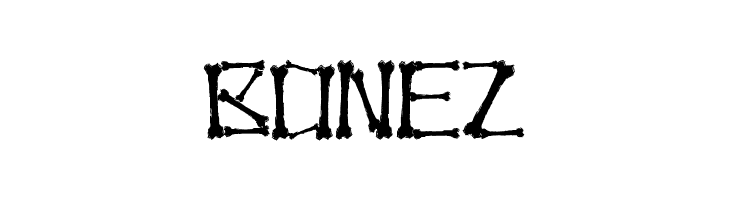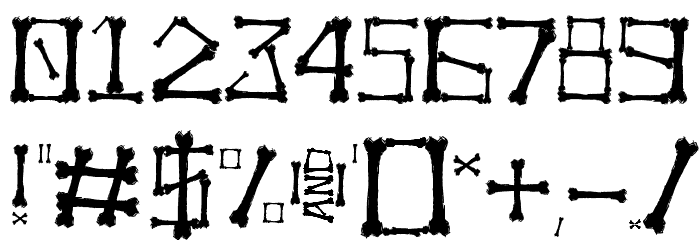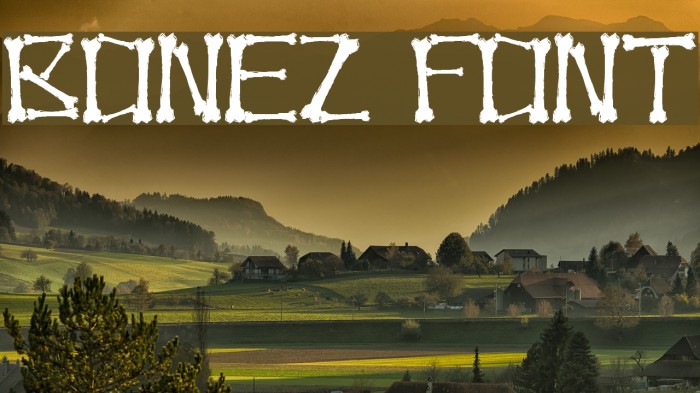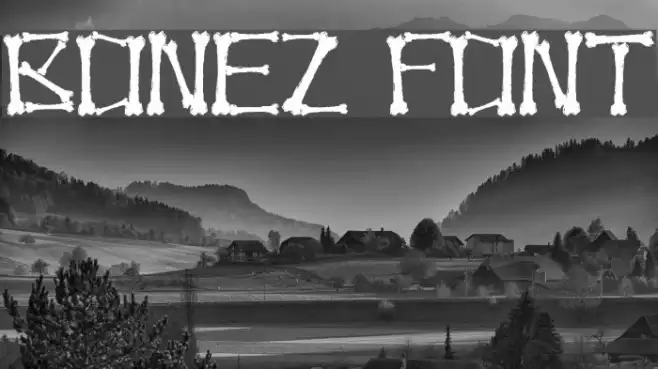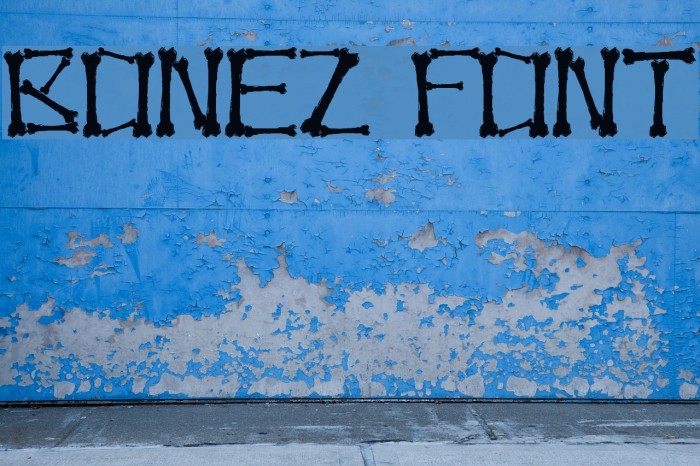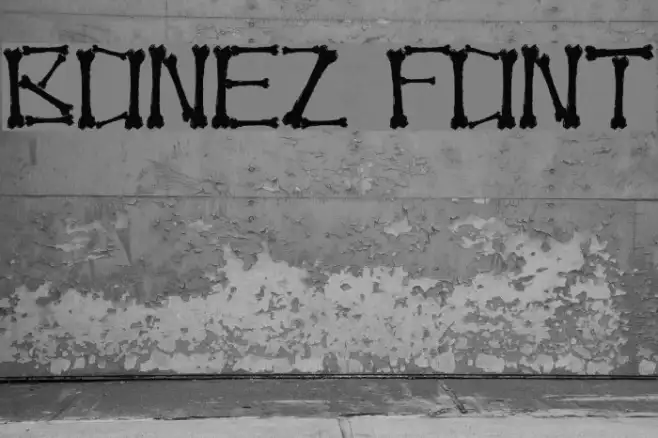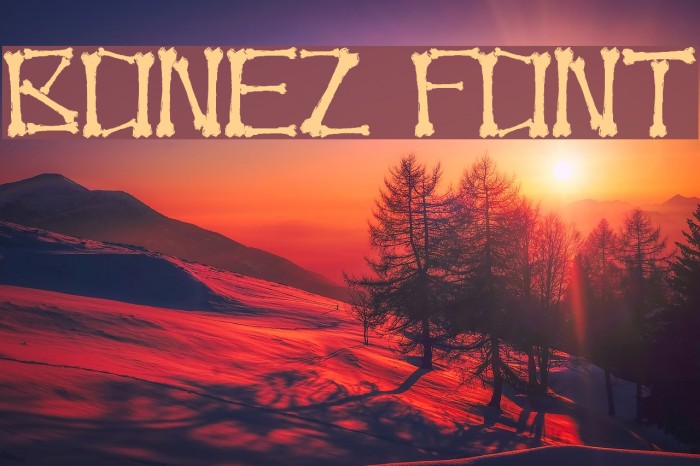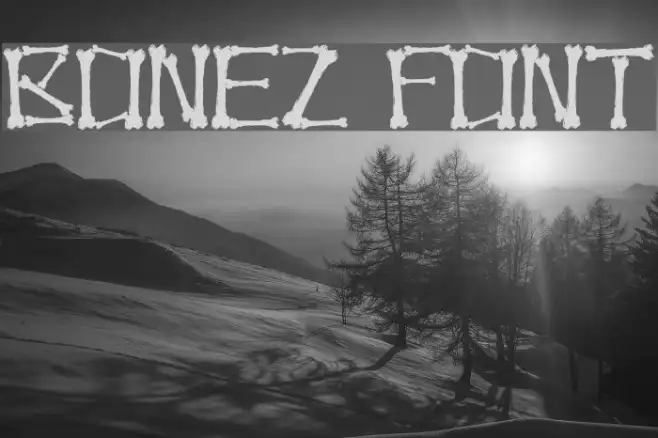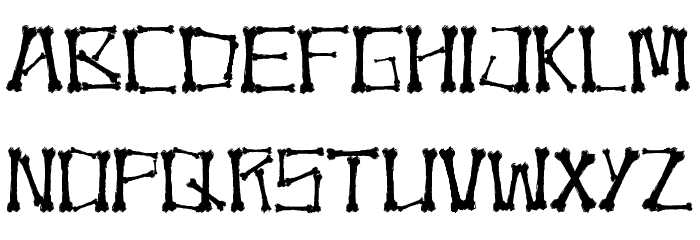
Bonez Font
This font features a unique, bone-like structure that gives it a distinct, edgy appearance. The characters are formed with irregular, jagged strokes that mimic the texture and shape of bones, creating a visually striking effect. The uppercase and lowercase letters maintain a consistent style, with each character exhibiting a rough, hand-drawn quality. The numerals and special characters follow the same design principles, ensuring a cohesive look across all glyphs. This font is perfect for projects that require a bold, unconventional aesthetic, such as Halloween-themed designs, horror movie posters, or any creative work that seeks to evoke a sense of mystery and intrigue.
A bone-inspired font with jagged, hand-drawn strokes for a bold, edgy look.
• Proposed Projects: Ideal for Halloween designs, horror movie posters, and creative projects needing a mysterious touch.